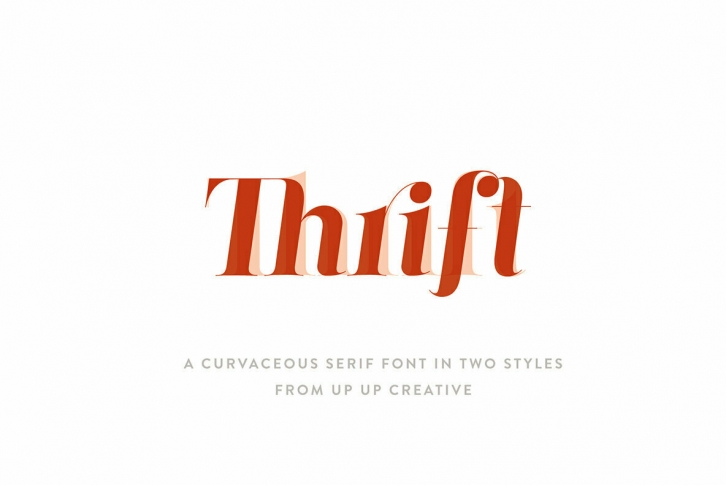
Introducing Thrift, a beautifully curvaceous serif font with smooth curves and fine lines and plenty of OpenType features. Thrift is perfect for your next editorial, advertising, branding, book, or invitation project.
OpenType Features
Thrift Regular and Thrift Italic each include approximately 800 glyphs. Specific OpenType features include stylistic alternates, several stylistic sets with features like curved ascenders and descenders, multilingual support (including multiple currency symbols - for kicks I even included a Bitcoin symbol in there), standard and proportional oldstyle numbers, and four ampersand styles. It also includes 24 standard and discretionary ligatures that add character and interest to your typography.